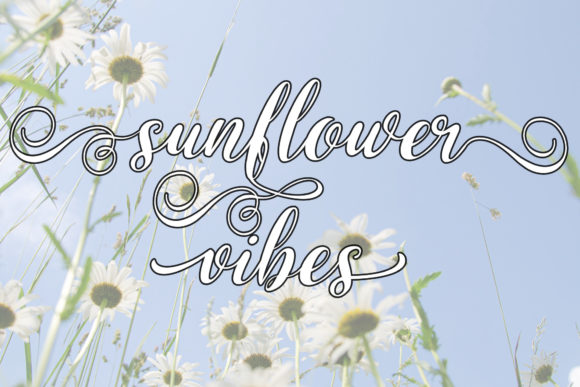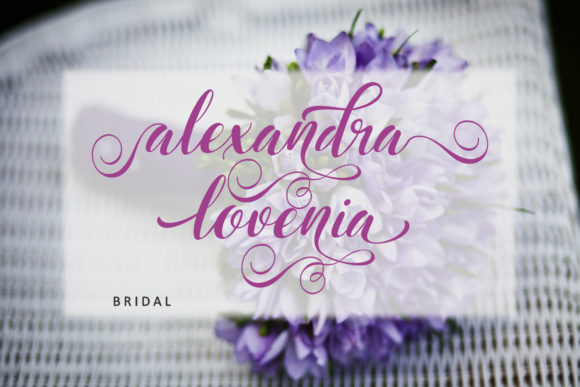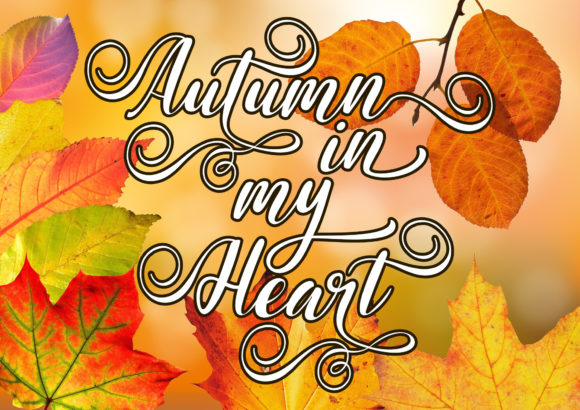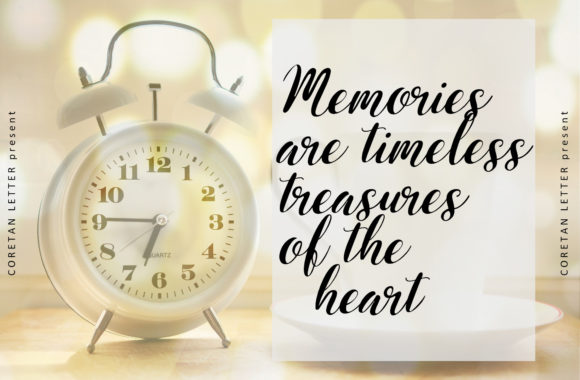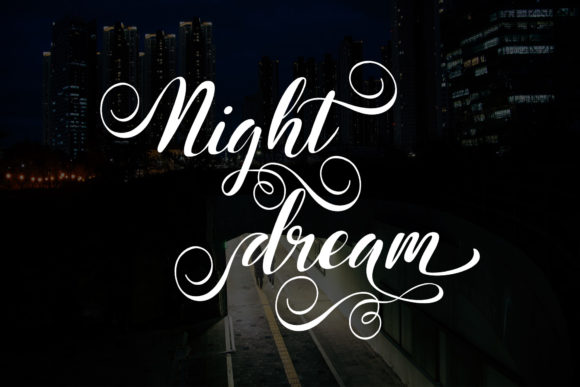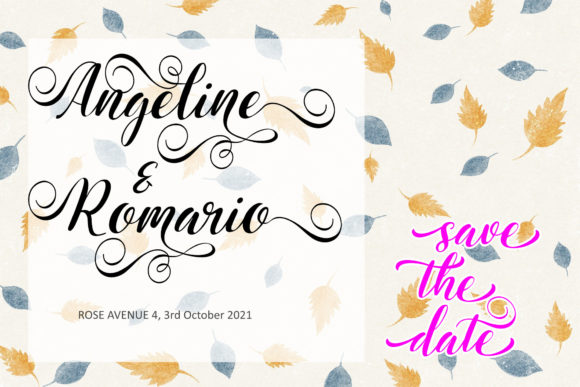
Introduction to Midsummer Better Font
There’s something magical about the summer solstice – the longest day of the year, a time when creativity seems to bloom like wildflowers in a sun-kissed meadow. As designers, we’re always on the lookout for the perfect font to bring our creative projects to life. And when we stumbled upon the Midsummer Better Font, we knew we’d found a true gem.
With its elegant script and contemporary atmosphere, this font is a masterclass in timeless design. The Midsummer Better Font is a design resource that will elevate your work, from weddings and events to branding and advertising. Its impeccable form and high-quality design make it a must-have for any designer looking to add a touch of sophistication to their creative project.
Key Features of Midsummer Better Font
- High-quality font design with transparent background, ideal for creative projects that require a unique and eye-catching visual style.
- Unique Midsummer Better Font style features a mix of modern and traditional elements, perfect for designers seeking a distinctive look.
Honest Review: Midsummer Better Font
I recently stumbled upon the Midsummer Better Font and I must say, I’m impressed. As a designer, I’m always on the lookout for high-quality design resources to elevate my creative projects. This font definitely delivers.
What works well: ✨ The font is incredibly versatile and can be used for a wide range of applications, from headings to body text. The design is sleek and modern, making it perfect for digital projects. I also appreciate the transparent background, which allows for seamless integration with any design element.
Overall, I’m a fan of the Midsummer Better Font. It’s a great design resource for personal projects or small-scale commercial work. If you’re looking for a high-quality, free font to enhance your creative project, this is definitely worth checking out.
- Perfect for digital projects
- Sleek and modern design
Getting the Most Out of Midsummer Better Font
To maximize the benefits of the Midsummer Better Font, use it in conjunction with other high-quality design resources, such as images and graphics. This will help create a cohesive and visually appealing design. Additionally, experiment with different font sizes, colors, and styles to create a unique and engaging visual experience.
The Midsummer Better Font is ideal for a variety of creative projects, including presentations, brochures, and social media graphics. Its transparent background and high-quality design make it a versatile resource for designers and non-designers alike.